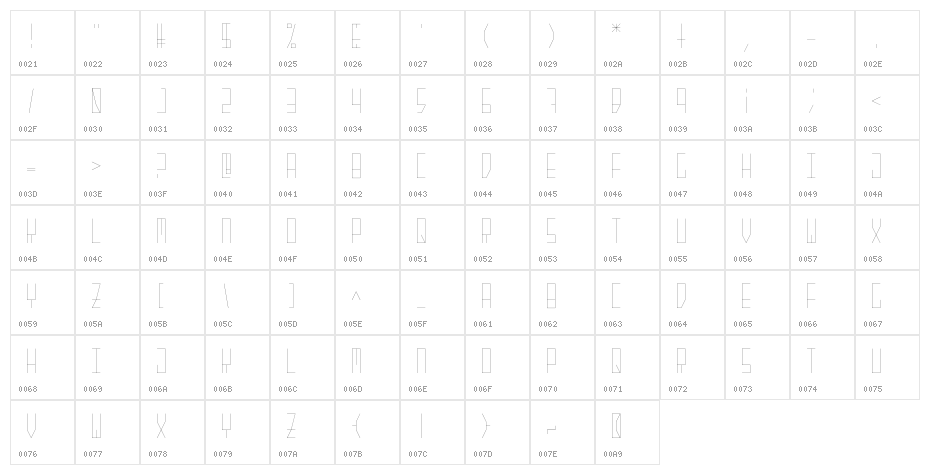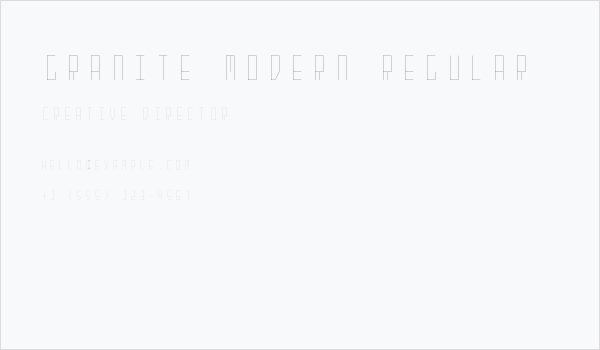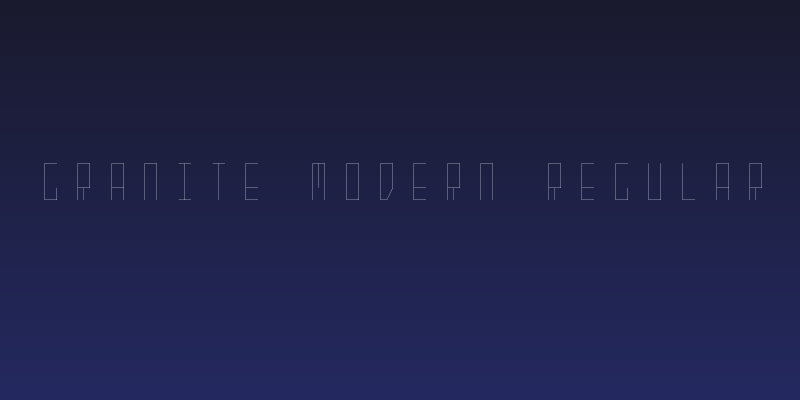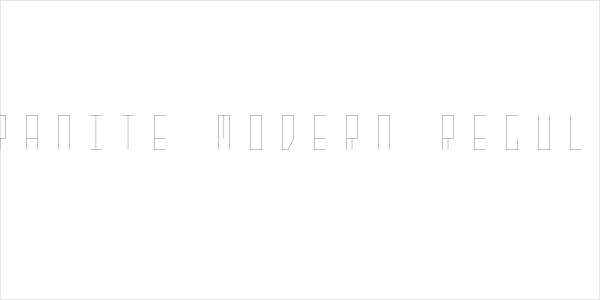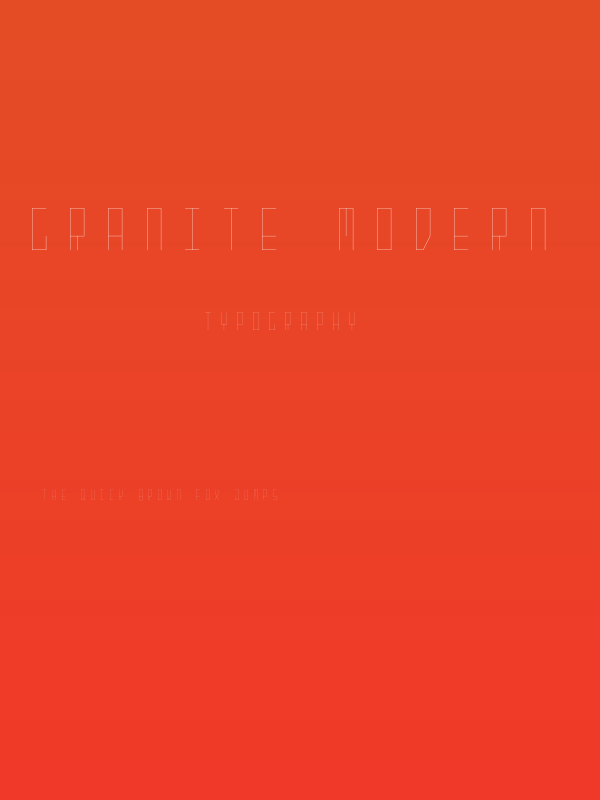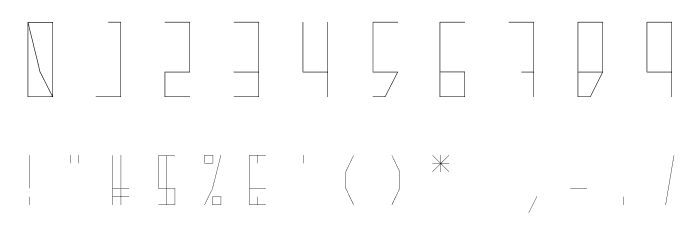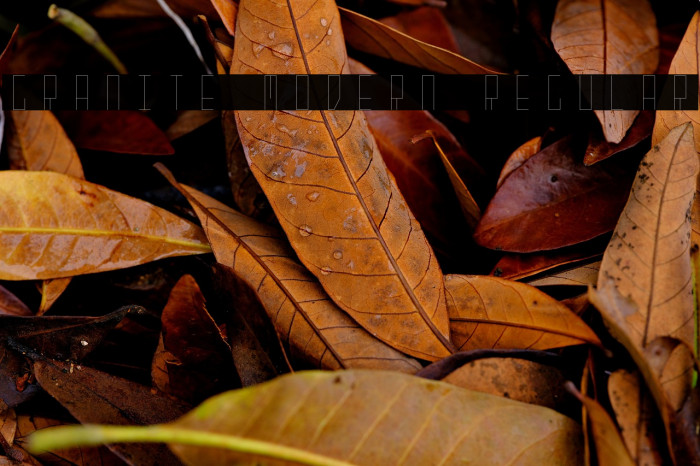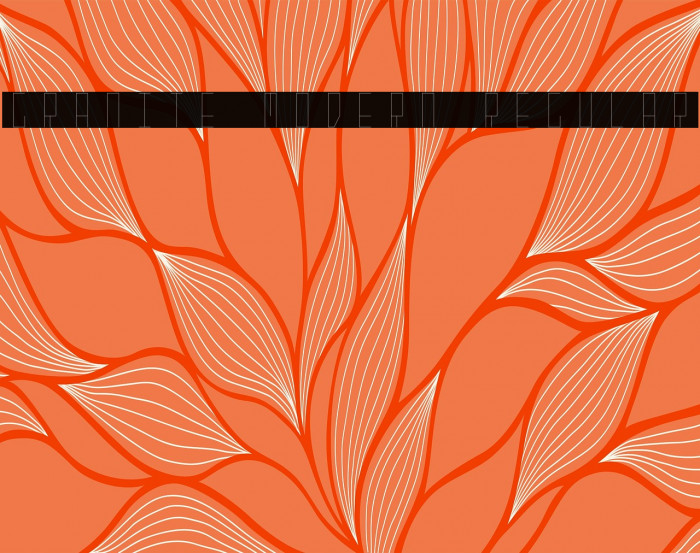
Granite Modern Regular Font
Granite Modern Regular Description
This font features a modern, geometric design with a minimalist approach. Each character is constructed with thin, straight lines, creating a clean and precise appearance. The uppercase and lowercase letters maintain a consistent height, contributing to a uniform look. The numerals and special characters follow the same geometric style, ensuring a cohesive visual identity. The font's simplicity and clarity make it suitable for contemporary design projects where a sleek and sophisticated aesthetic is desired.
| Proposed Projects | Ideal for modern branding, tech-related designs, architectural presentations, and minimalist posters. |